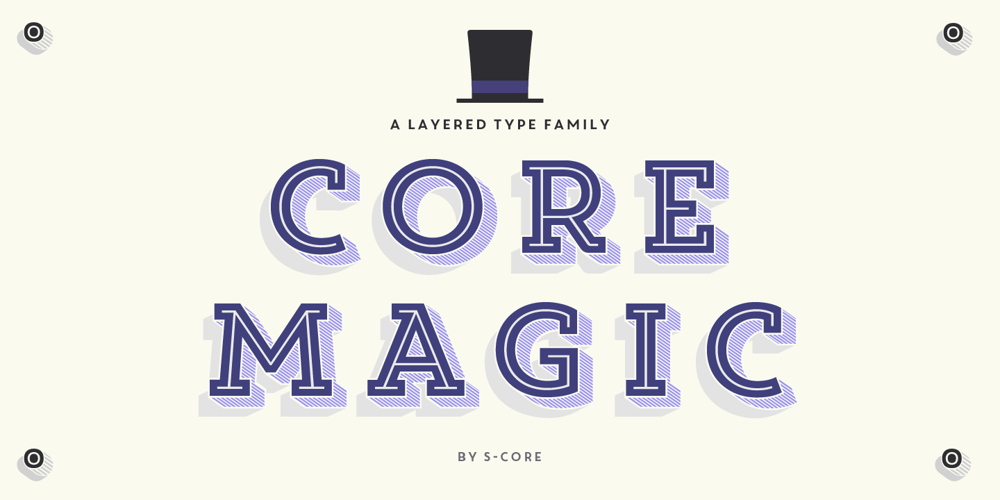
Core Magic
Core Magic font
Core Magic Font Family was designed by Hyun-Seung Lee, Dae-Hoon Hahm, Minjoo Ham and published by S-Core. Core Magic contains 20 styles and family package options. Core Magic is a slab-serif version of Core Circus which is a layered type family consisting of seven 3D effect layers, eight 2D effect layers and one shadow effect layer. Uppercase and lowercase letters are separated by such features that counters are opened or closed. Core Magic provides other closed counter styles such as numbers with opentype feature (Stylistic Alternatives). Using Core Magic with Core Circus could make your works more charming and special with endless combinations (at least 262,551 kinds). This family is really nice for book titles, headlines, logotypes and any artworks. Also available the rough version of this family – Core Magic Rough.